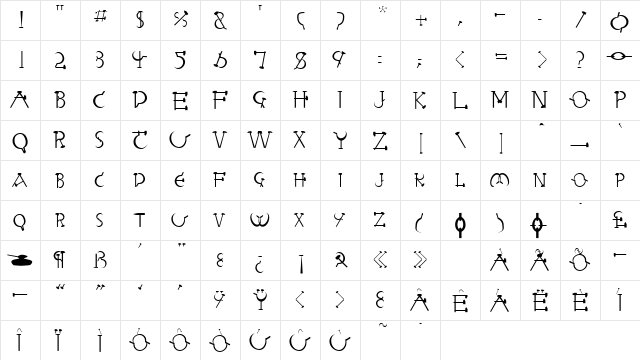
CommieFont Regular
Design Context for CommieFont Typeface
CommieFont is a composed and adaptable typeface that performs quietly and consistently across a wide range of design contexts.